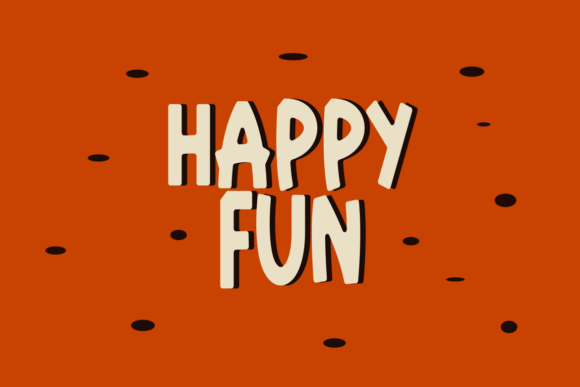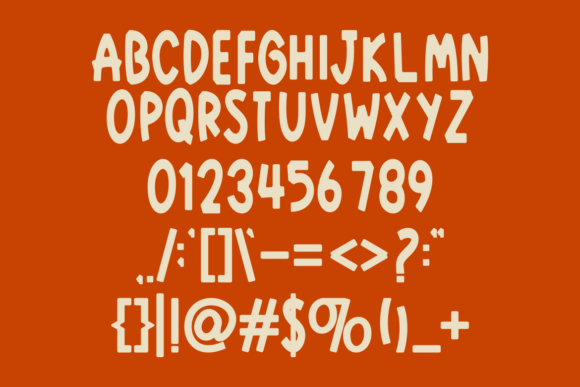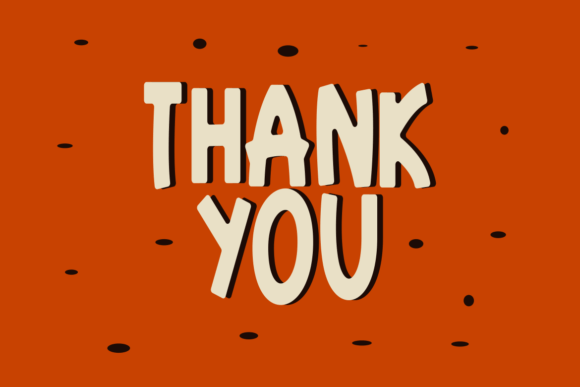
Introducing Dumblu Font: Elevate Your Designs with Elegance and Sophistication
In the world of typography, a font can make or break a design. It’s the foundation upon which your creative vision is built, and choosing the right one can be a daunting task. However, if you’re looking for a font that exudes beauty, class, elegance, and modernity, look no further than Dumblu Font. This unique display font is perfect for designers and crafters seeking to add a touch of sophistication to their projects.
What is Dumblu Font?
Dumblu Font is a distinctive display font designed to make a statement. Its elegant and modern design makes it an ideal choice for a wide range of projects, from signature and stationery to logos, wedding designs, typography quotes, magazine or book covers, website headers, clothing, branding, packaging design, and more. With Dumblu, you can add a touch of class and sophistication to your designs, setting them apart from the rest.
Key Features of Dumblu Font
- Unique Design: Dumblu Font boasts a unique design that is both elegant and modern, making it perfect for designers looking to create something distinctive.
- Versatility: This font is incredibly versatile and can be used for a wide variety of projects, from digital designs to print materials.
- High-Quality: Dumblu Font is a high-quality font designed to ensure that your designs look professional and polished.
Why Choose Dumblu Font?
There are many fonts available, but Dumblu Font stands out from the crowd. Here are a few reasons why you should consider choosing Dumblu for your next project:
- Elegance: Dumblu Font is designed to add a touch of elegance to your designs. Its unique design ensures that your projects will stand out and look sophisticated.
- Modernity: This font is perfect for designers looking to create modern designs. Its clean lines and sleek design make it an ideal choice for contemporary projects.
- Class: Dumblu Font exudes class and sophistication, making it perfect for high-end designs, such as luxury branding and wedding designs.
Tips for Using Dumblu Font
Here are a few tips to help you get the most out of Dumblu Font:
- Pair it with Other Fonts: Dumblu Font works well with other fonts, so don’t be afraid to experiment with different combinations.
- Use it for Headings: This font is perfect for headings and titles, so use it to add a touch of elegance to your designs.
- Experiment with Colors: Dumblu Font looks great in a variety of colors, so experiment with different colors to find the one that works best for your design.
Dumblu Font is a unique and elegant display font that is perfect for designers and crafters looking to add a touch of sophistication to their projects. Its versatility, high-quality design, and ease of use make it an ideal choice for a wide range of designs. Whether you’re working on a logo, website header, or packaging design, Dumblu Font is sure to make your project stand out. So why wait? Download Dumblu Font today and start creating stunning designs that exude elegance and class.